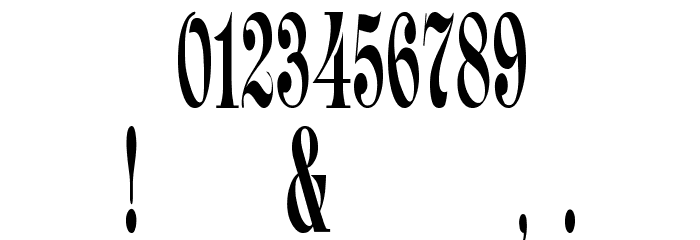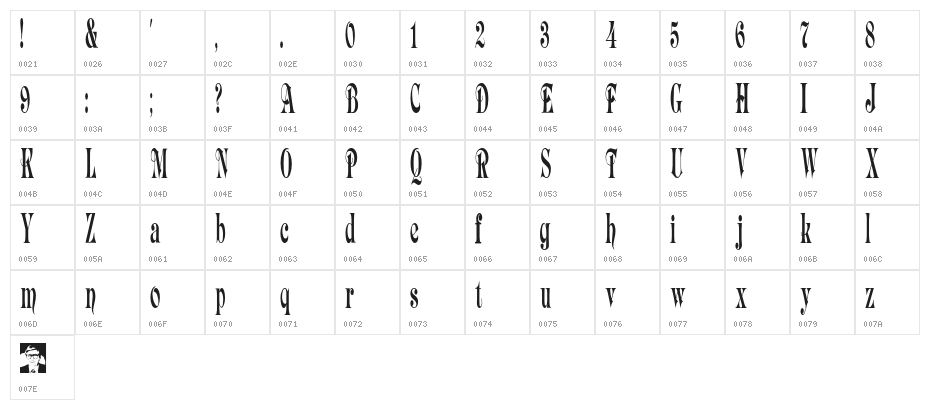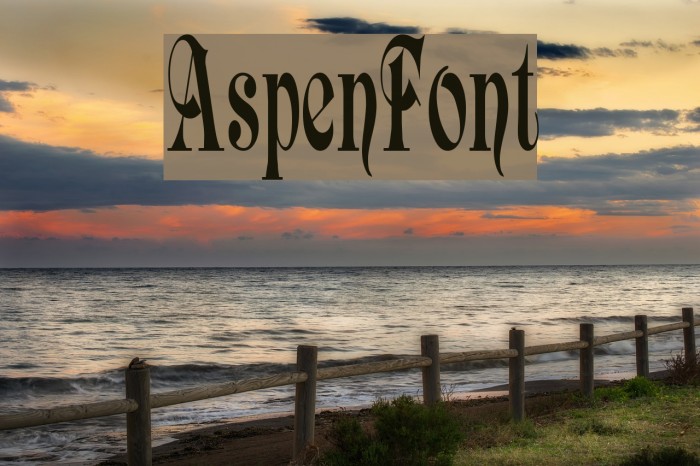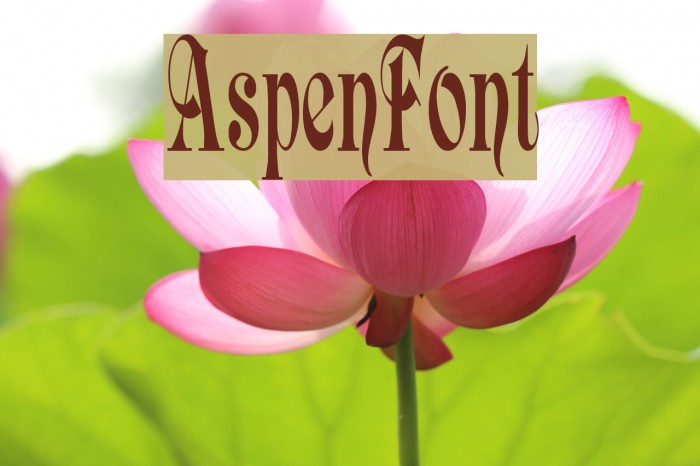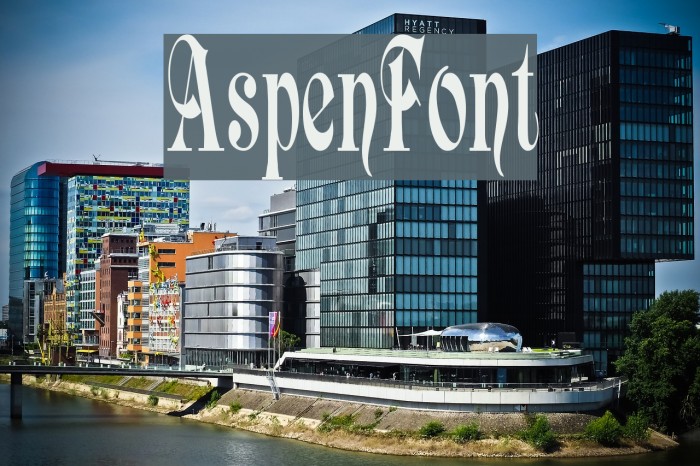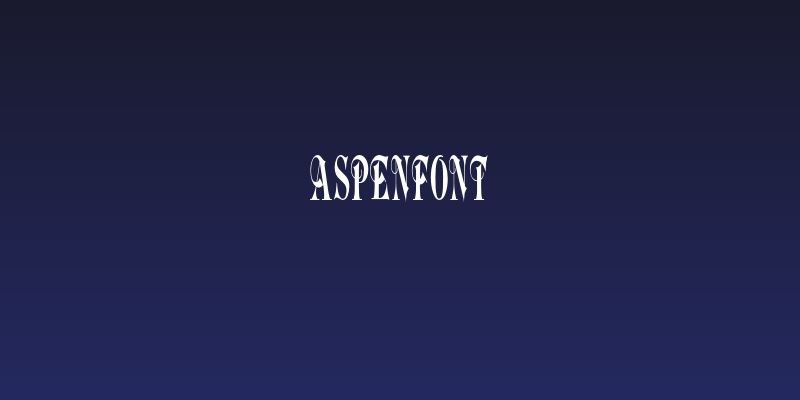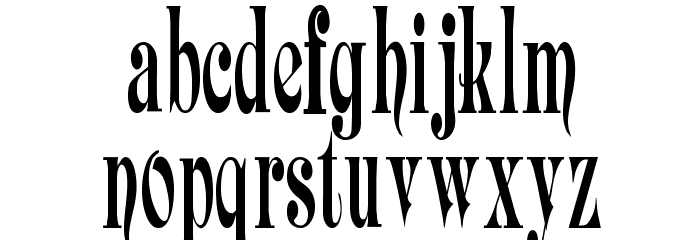
AspenFont Font
AspenFont Description
This font features a bold and dramatic style with high contrast between thick and thin strokes, giving it a striking appearance. The uppercase letters are tall and narrow, with unique, ornate serifs that add a decorative flair. The lowercase letters maintain a similar aesthetic, with a slightly more condensed form. Numbers and special characters are designed to match the overall style, ensuring consistency throughout. The font's distinctiveness makes it suitable for projects that require a bold statement.
| Proposed Projects | Ideal for use in headlines, posters, branding, and any design work that requires a strong visual impact. |